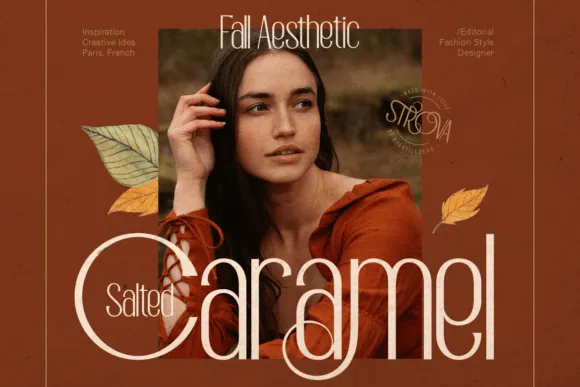
Strova Font is a perfect serif textual style, magnificently intended to turn into a genuine number one.
Strova Font keeps up with its tasteful calligraphic impacts while feeling contemporary and new.